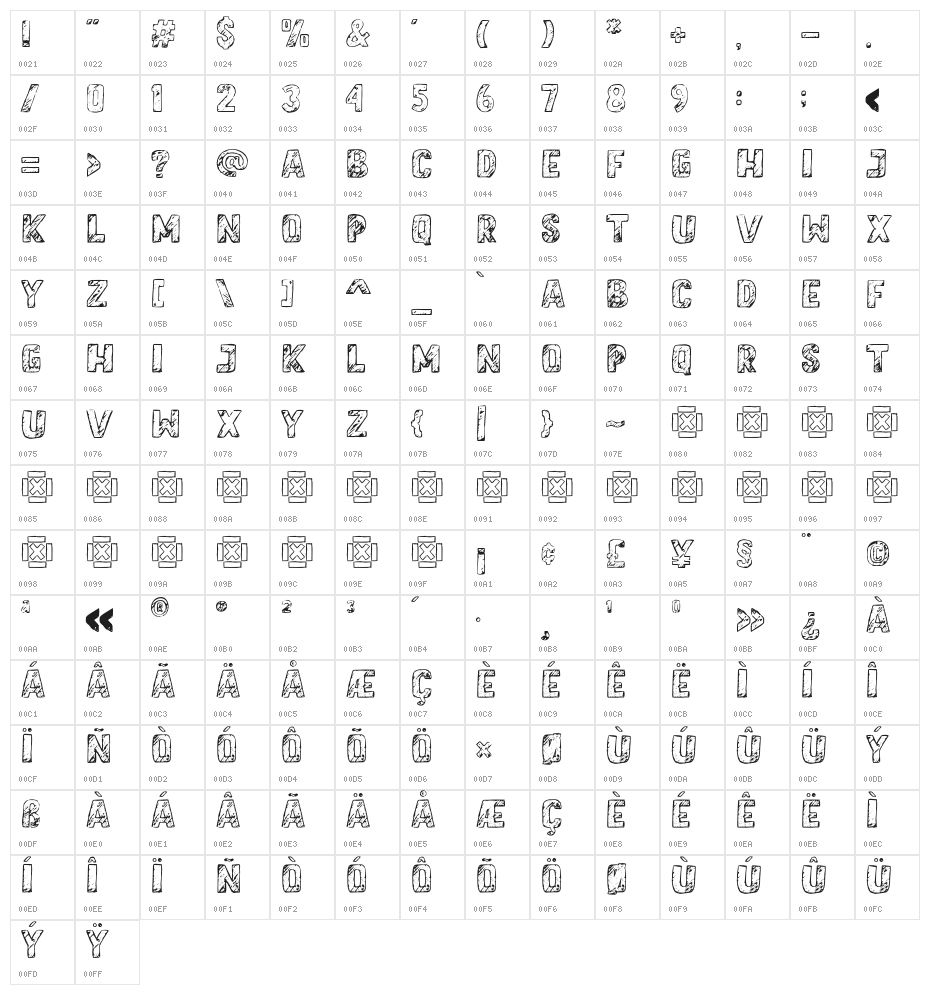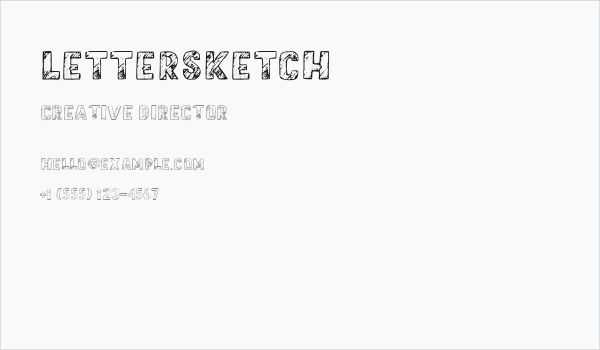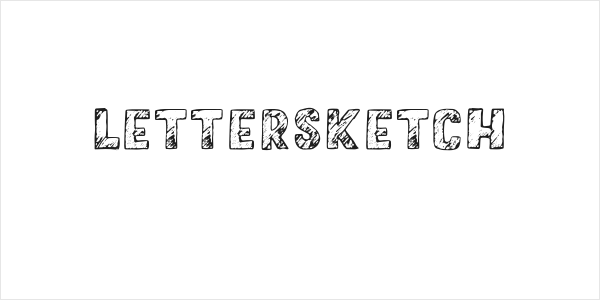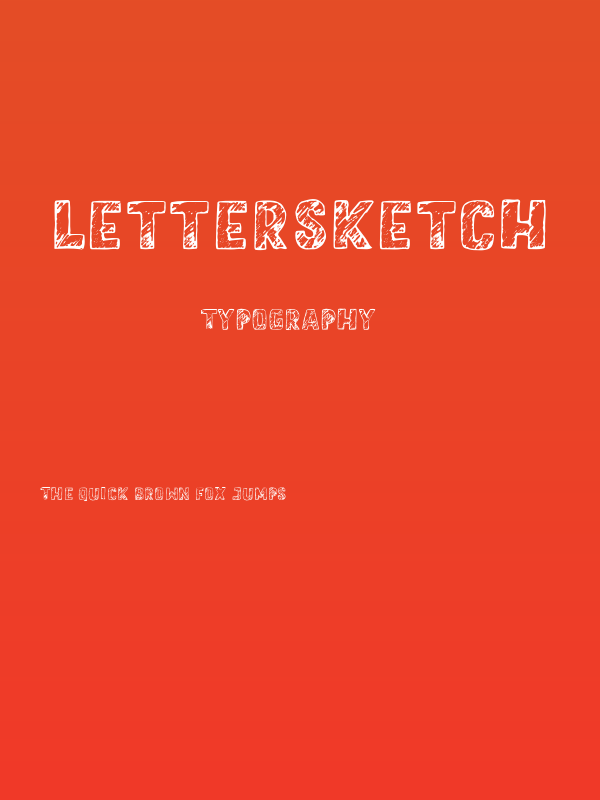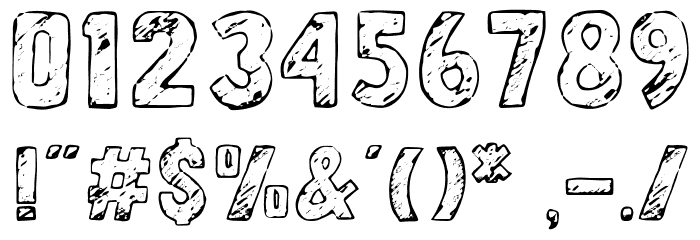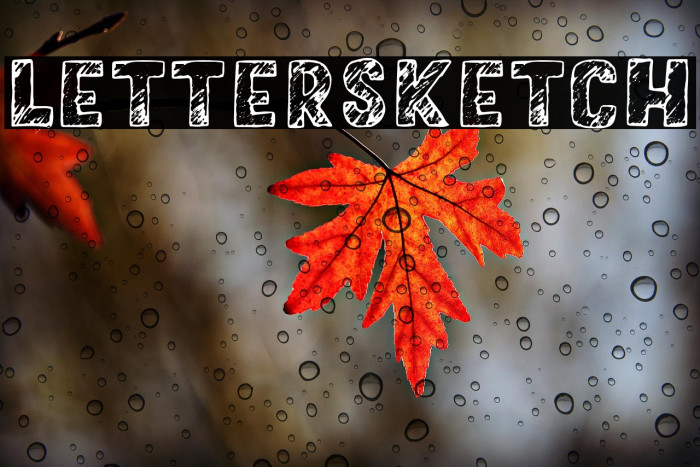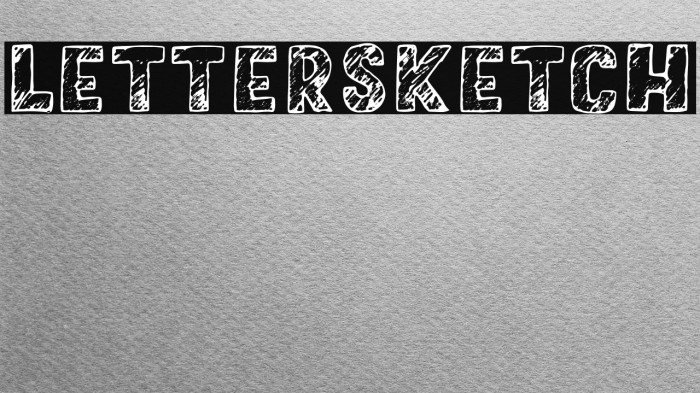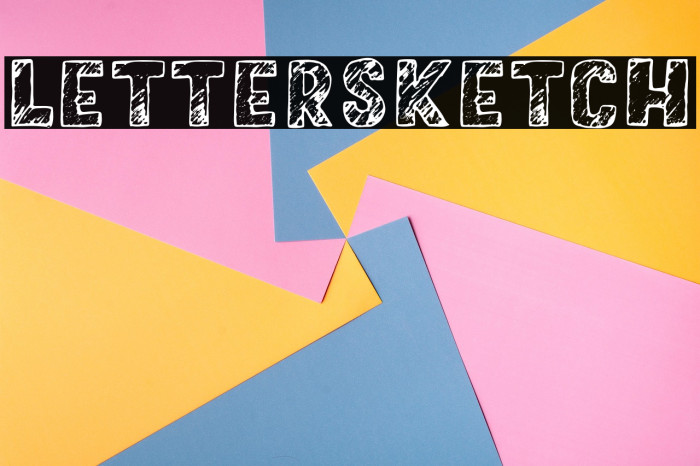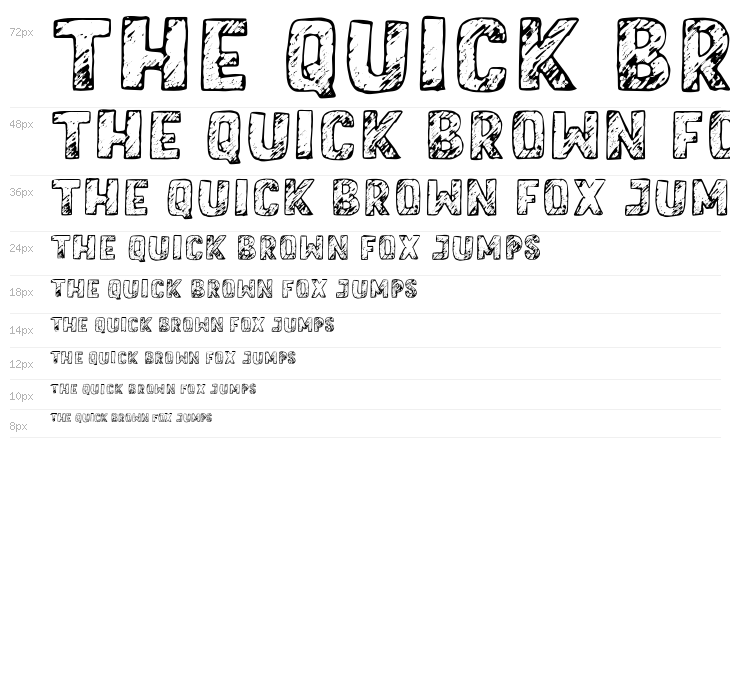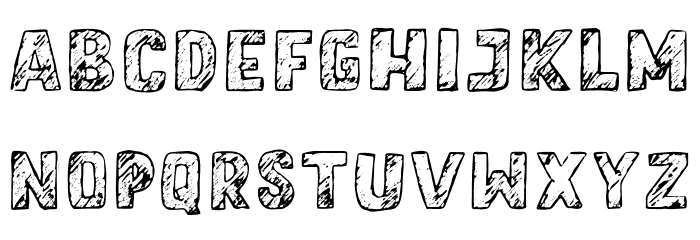
LetterSketch Font
LetterSketch Description
This font features a bold, sketch-like appearance with a hand-drawn quality. Each character is filled with a textured pattern that resembles pencil shading, giving it a unique, artistic flair. The letters are uppercase and lowercase, with numbers and a variety of special characters included. The overall style is playful and informal, making it suitable for creative projects. The strokes are consistent in thickness, providing a balanced look despite the rough texture. This font is ideal for designs that aim to convey a sense of creativity and individuality.
| Proposed Projects | Ideal for art projects, children's book covers, posters, and creative branding. |